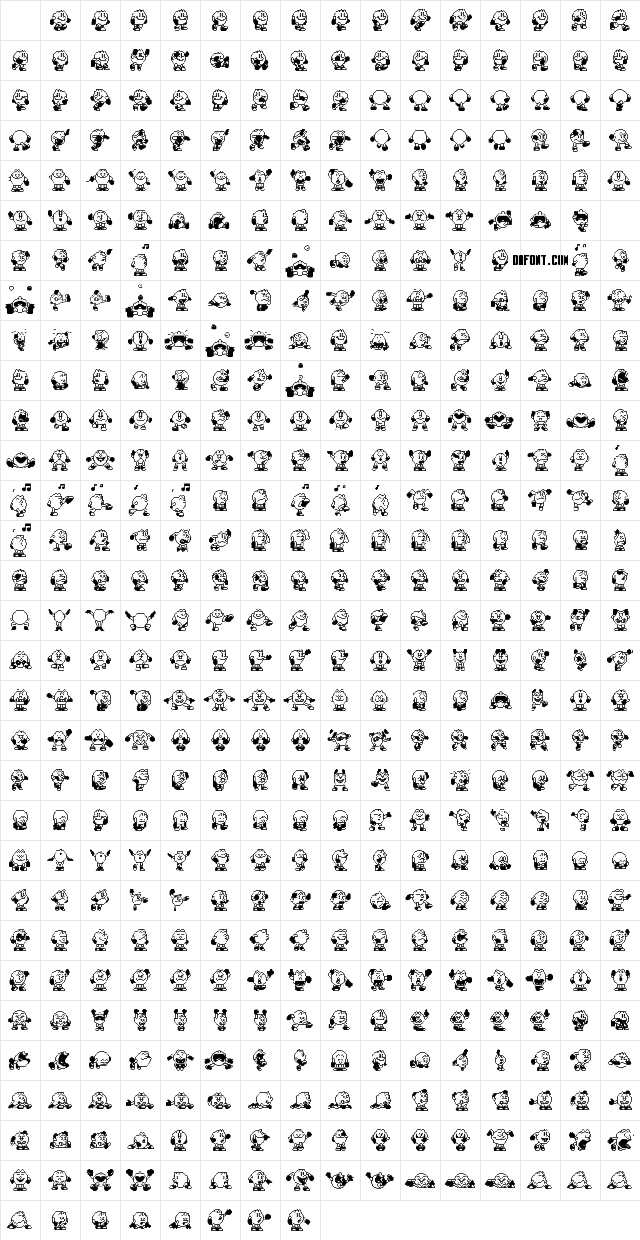
Complete Pac-Man 2 The New Adventures Regular glyph index. Displaying only characters natively supported by Pac-Man 2 The New Adventures Regular font.
Pac-Man 2 The New Adventures is a composed and adaptable typeface that performs quietly and consistently across a wide range of design contexts.